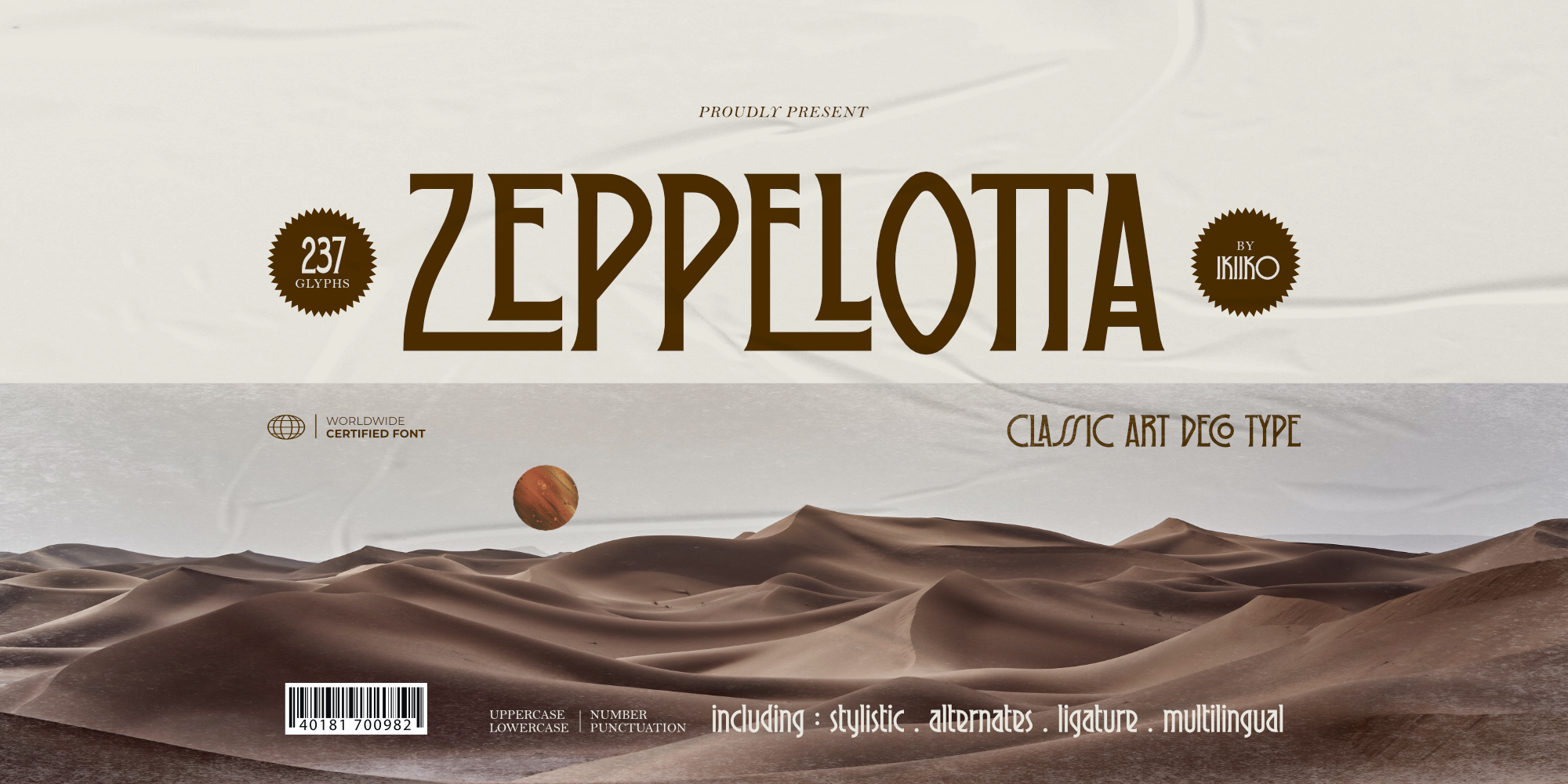
Zeppelotta Font is ideal for steampunk event graphics, vintage aviation museums, retro-futuristic branding, adventure travel companies, dirigible-themed restaurants, industrial design studios, alternative history novels, vintage aircraft restoration, aviation heritage materials, and any imaginative project that celebrates the romantic era of airships and the golden age of magnificent flying machines.
What makes Zeppelotta Font exciting is its majestic presence that captures the grandeur of the great airship era and the romantic spirit of early aviation adventure. This typeface embodies the essence of sky-bound exploration with bold letterforms that seem to float gracefully like mighty zeppelins crossing endless horizons. The font's airborne character makes it perfect for brands and projects that want to communicate adventure, innovation, and the timeless appeal of reaching for the sky with magnificent engineering and boundless imagination.
The Zeppelotta Font family includes multiple weights and aviation-inspired variations, featuring light, regular, and bold versions along with decorative elements and alternate characters inspired by vintage airship design and aeronautical engineering. This comprehensive collection allows designers to create authentically vintage typography that maintains the font's signature majestic character while providing flexibility for various aviation and adventure-themed design applications.
When exploring authentic aviation typography, Zeppelotta Font Free Download represents an exceptional opportunity to work with a typeface that genuinely captures the spirit of airship grandeur and aviation romance. This font demonstrates innovative design thinking by incorporating the elegant engineering and graceful proportions that defined both dirigible design and the golden age of passenger airship travel.
Professional designers appreciate Zeppelotta Font for its ability to instantly evoke feelings of adventure and technological wonder across various entertainment and heritage platforms. The font's majestic character makes it particularly effective for aviation museums, adventure tourism, and steampunk entertainment seeking to establish connections with audiences fascinated by the romance of early flight and alternative technological histories.
The timeless appeal of Zeppelotta Font lies in its perfect representation of technological optimism and adventure spirit that continues to capture imaginations across generations. This typeface serves as a celebration of human ingenuity and the eternal dream of conquering the skies through magnificent engineering and fearless exploration.
For creative professionals working with aviation and adventure brands, Zeppelotta Font represents the ultimate typography solution that brings authentic airship majesty and aviation romance to any application, ensuring designs reflect the grandeur and adventurous spirit that defined the golden age of dirigible travel and sky-bound exploration.